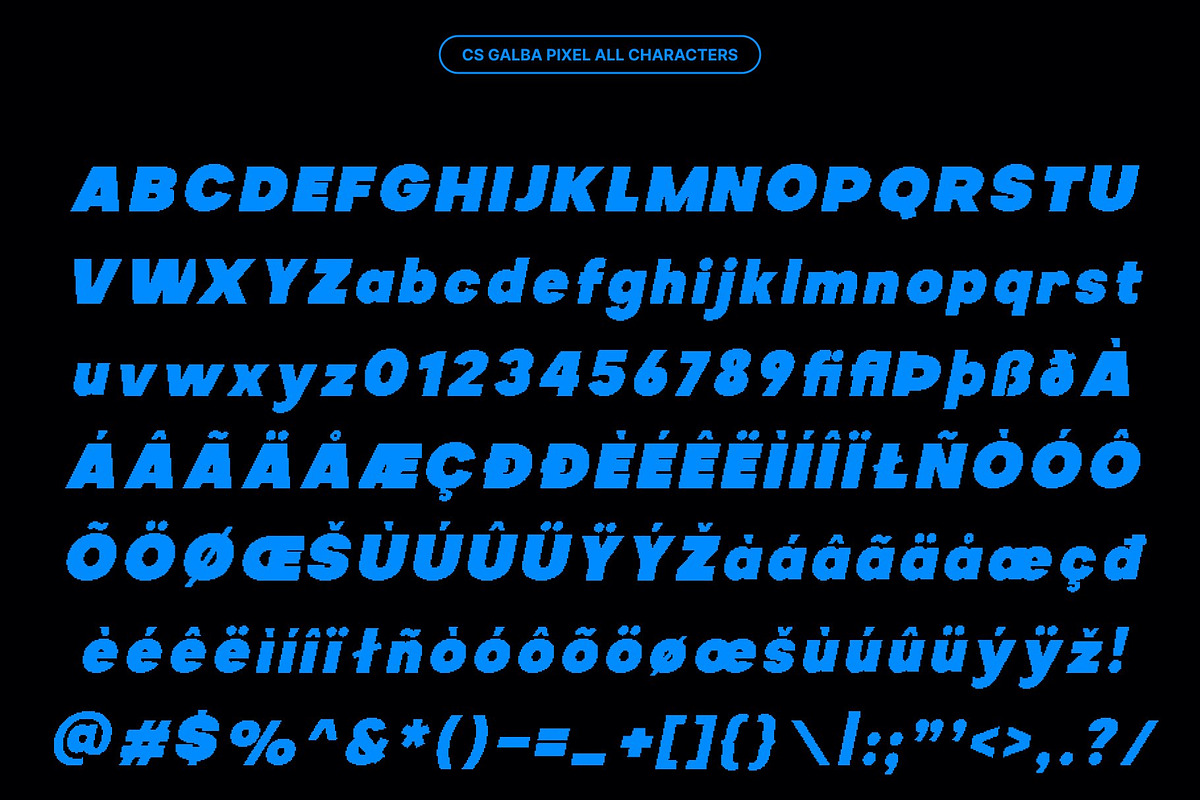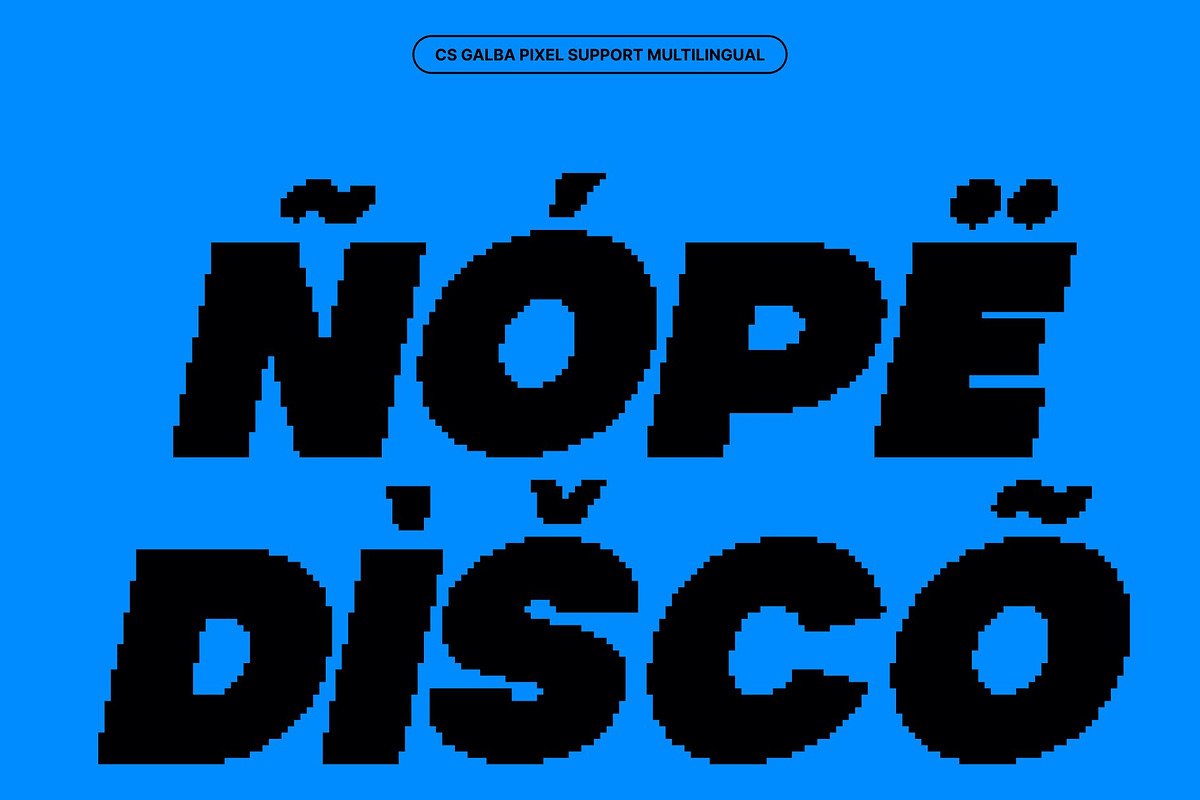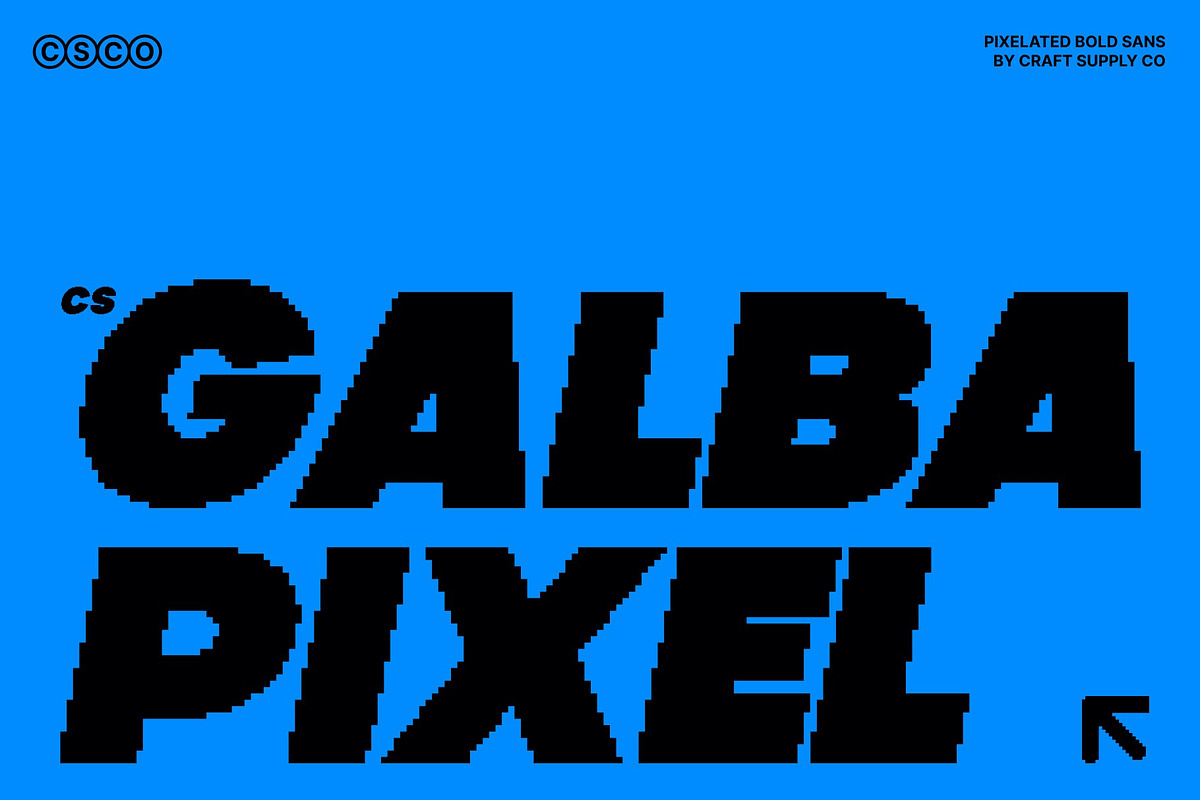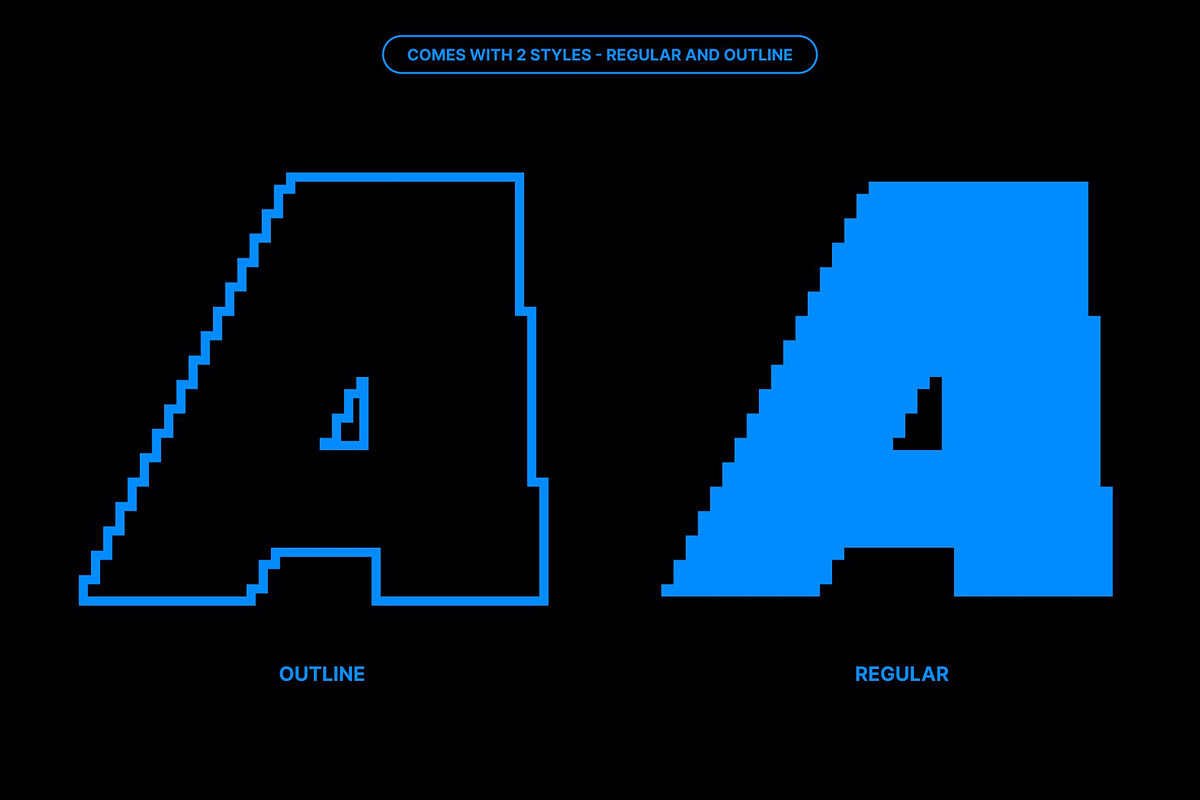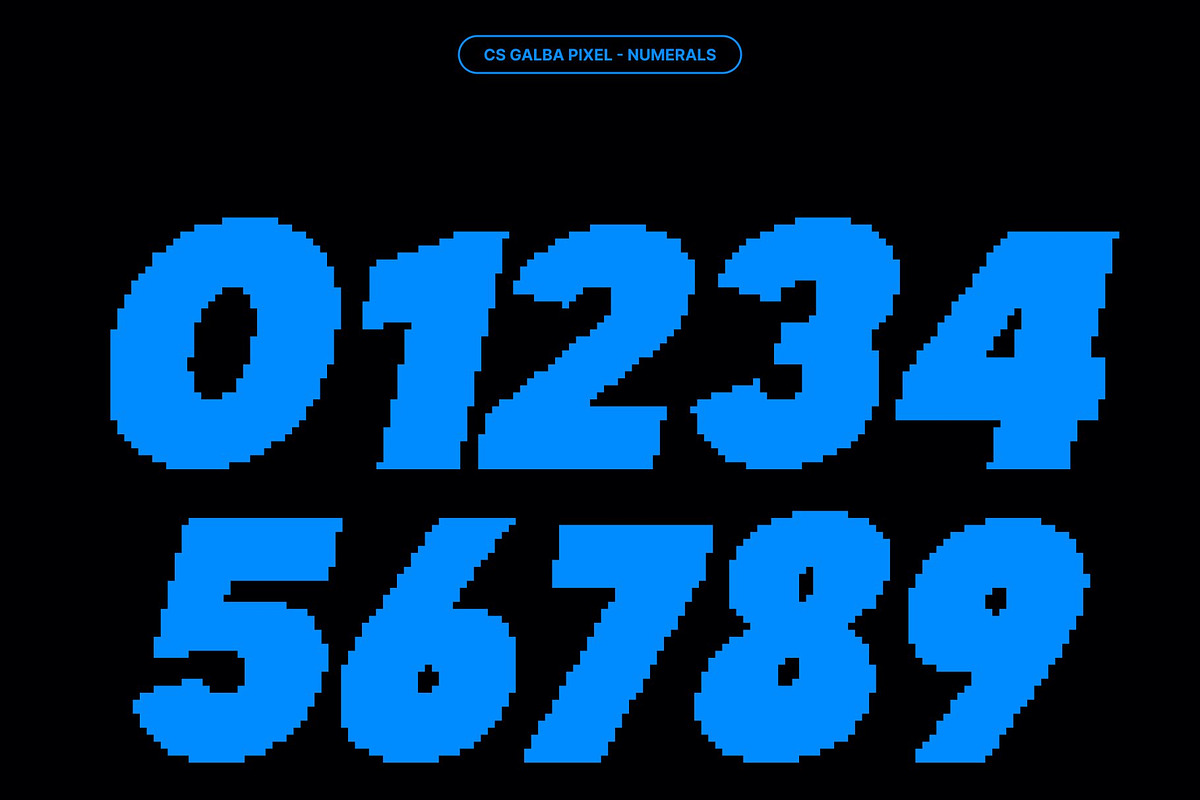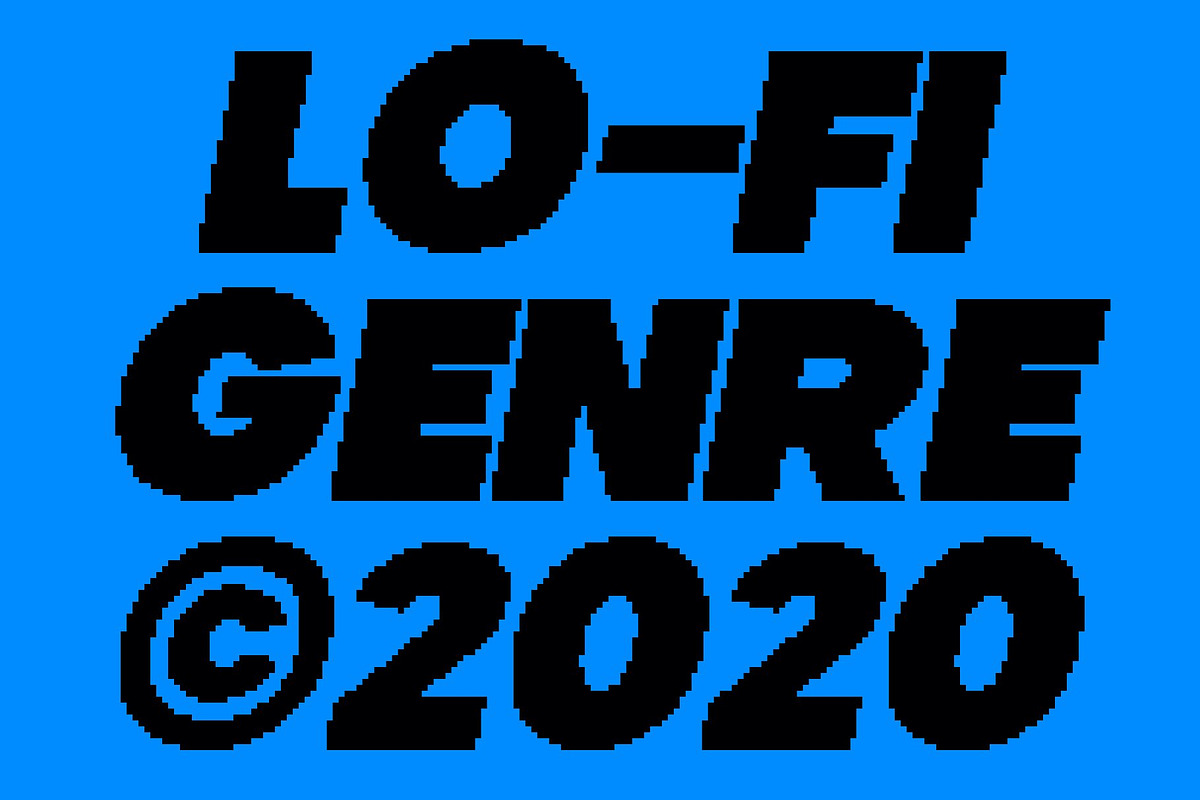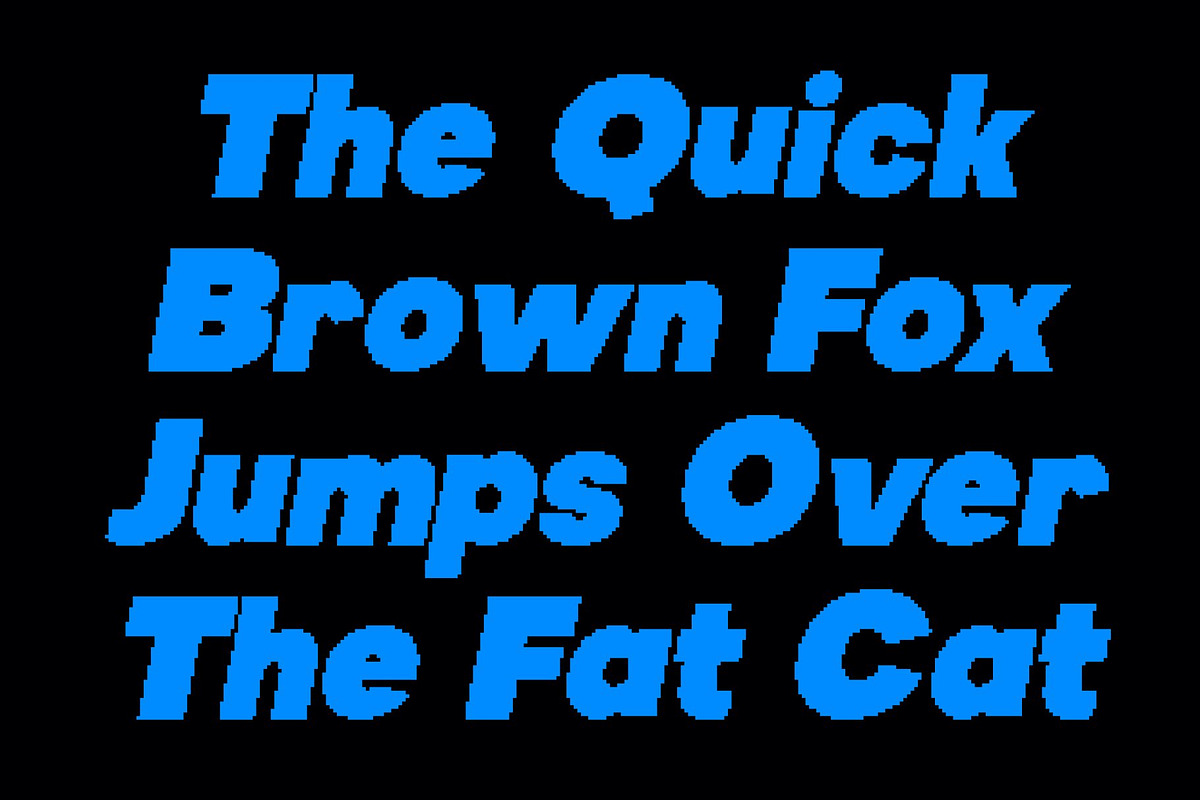
CS Galba Pixel
CS Galba Pixel – Bold Sans Serif with Geometric Precision
Bold Display Font with Digital Strength This is a bold sans serif display font designed to command attention instantly. Its strong letterforms and confident weight are enhanced by a crisp pixel-style construction, giving the font a powerful digital presence. The result is a modern display typeface that feels sharp, structured, and visually impactful perfect for headlines, posters, and high-energy branding.
Geometric Pixel Shapes for Modern Clarity Built on precise geometric forms, this font delivers clarity and balance with every character. The pixel-based structure reinforces clean edges and solid proportions, creating a contemporary aesthetic rooted in digital logic. This geometric precision ensures excellent readability while adding a subtle retro-technology character.
Energetic Rhythm with a Modern Tech Feel This font carries a lively and expressive rhythm that brings movement to bold typography. Its dynamic proportions and pixel-aligned details generate visual excitement, making text feel energetic and assertive. This modern techno vibe helps designs stand out with confidence and immediacy.
Perfect for Contemporary Branding and Digital Displays Ideal for editorial layouts, digital campaigns, posters, and visual branding, this font adapts seamlessly across creative projects. Its combination of strength, clarity, and pixel-inspired modernity makes this font a versatile choice for designers seeking a bold typeface with striking visual impact and a digital-forward identity.
- CS Galba Pixel Regular
- CS Galba Pixel Outline